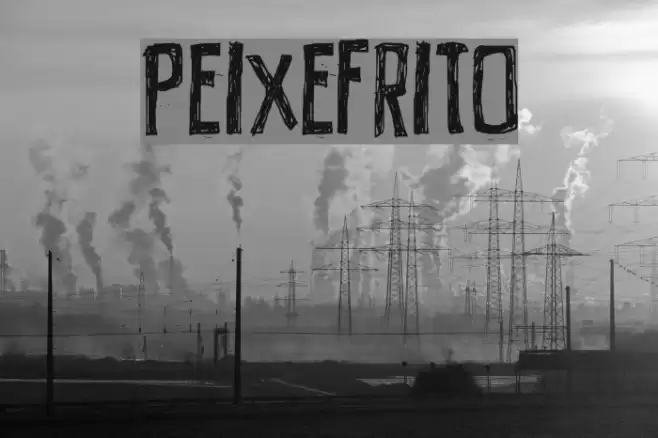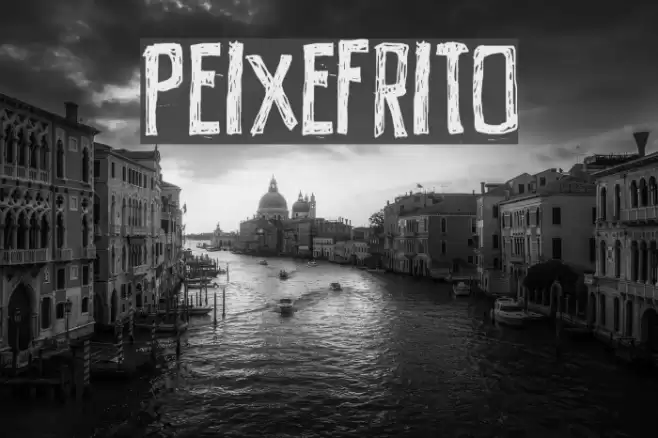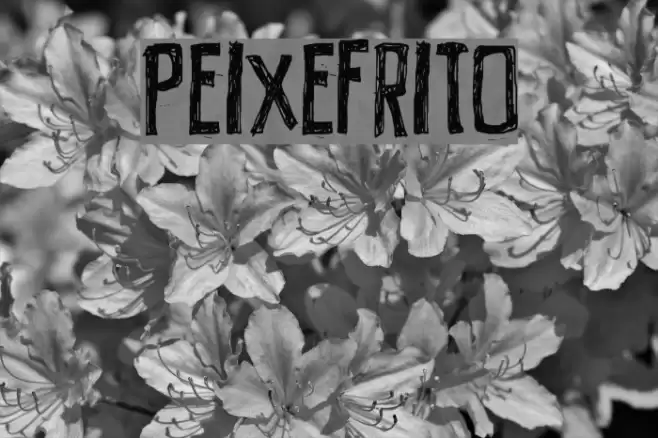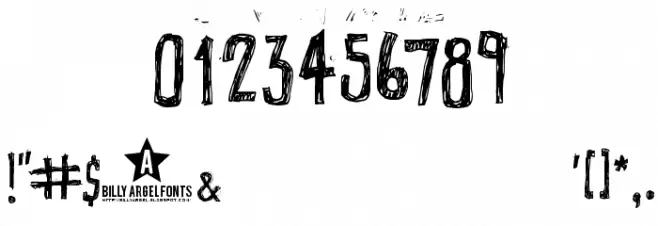
PEIXEFRITO Font
PEIXEFRITO Description
This font features a hand-drawn, textured style that gives it a rugged and artistic appearance. The characters are slightly irregular, adding a sense of authenticity and uniqueness. The uppercase letters are bold and prominent, while the lowercase letters maintain a consistent style with a slightly more relaxed form. Numbers and special characters follow the same textured pattern, ensuring a cohesive look across all glyphs. This font is ideal for projects that require a creative and informal touch, such as posters, album covers, or artistic branding.
A hand-drawn, textured font with a rugged and artistic style from Uncategorized fonts.
- Proposed Projects: Ideal for posters, album covers, artistic branding, and creative projects.